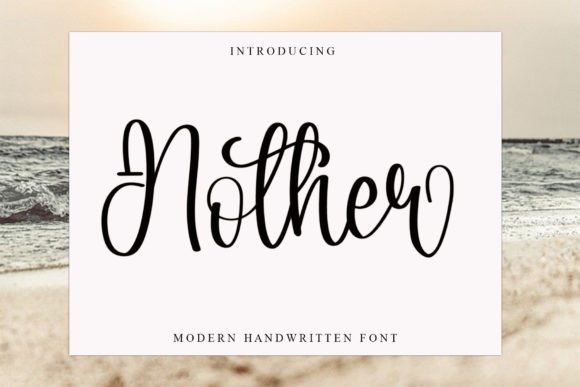
Introducing Nother Font, the ultimate script font that will elevate your business plan to new heights! Created by PiPi Creative, this neat and beautiful handwritten font is the perfect addition to your collection. With its elegant touch and timeless style, Nother Font is guaranteed to captivate and inspire.
Are you tired of mundane and ordinary fonts that fail to make an impact? Look no further! Nother Font is here to revolutionize your designs and leave a lasting impression on your audience. Its distinctive and eye-catching features will instantly draw attention, ensuring that your business plan stands out from the competition.
Imagine the possibilities with Nother Font. Whether you're designing a captivating logo, crafting an engaging marketing campaign, or creating stunning social media graphics, this font has got you covered. Its versatility allows you to effortlessly adapt it to various design projects, making it the go-to choice for creative professionals.
But Nother Font isn't just about aesthetics – it's also about conveying emotions and telling a story. With every stroke and curve, this font exudes elegance, sophistication, and charm. It evokes a sense of trust and professionalism, making it the best font for your business plan. Let your words resonate with your audience and leave a lasting impression.
Join countless designers, entrepreneurs, and visionaries who have already fallen in love with Nother Font. Don't settle for mediocrity – let your creativity soar with this extraordinary font. Stand out, make a statement, and leave a lasting impression on your audience.
In summary, Nother Font is the epitome of elegance and sophistication. Its distinct and timeless style, along with its versatility and compatibility, make it the perfect choice for your business plan and various design projects. Download Nother Font today and unlock a world of limitless creativity!